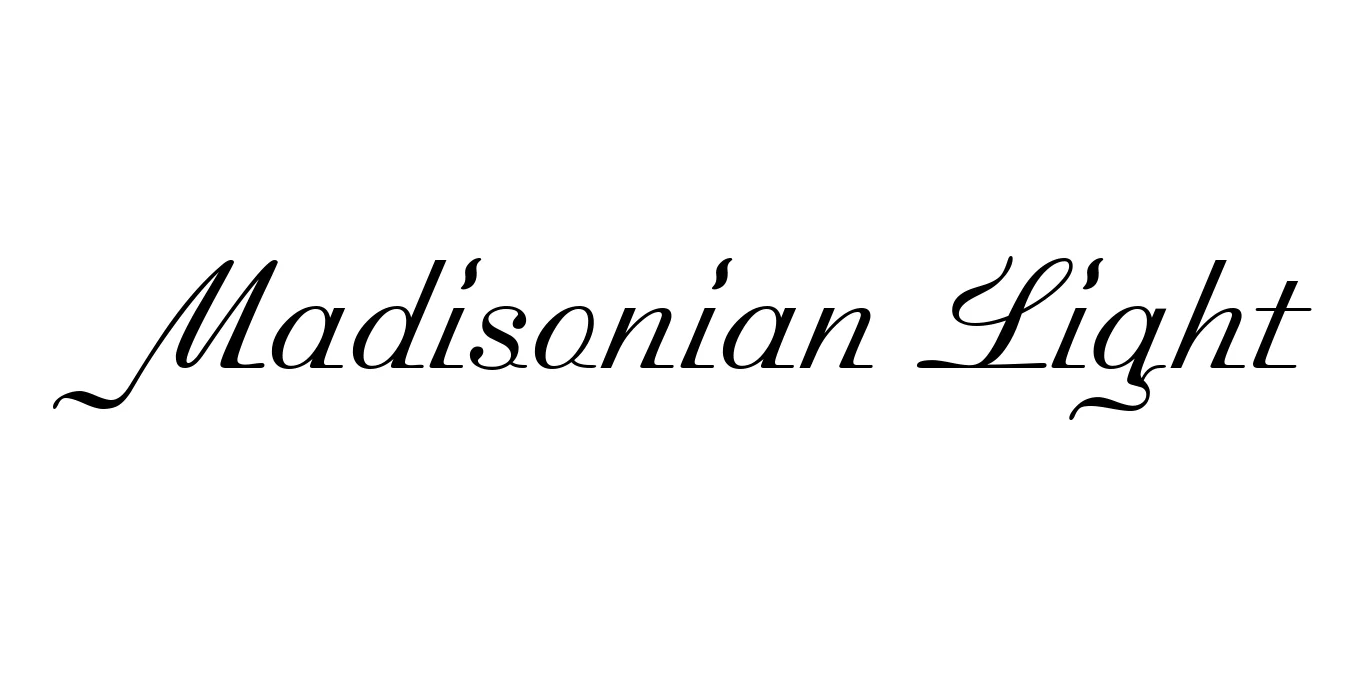
Madisonian Light
Designed by George Thomas
Madisonian Light is a refined script typeface that draws inspiration from the classic calligraphic styles of the early 20th century. It features elegant, flowing strokes and a high degree of contrast between thick and thin lines, embodying the sophistication of formal copperplate scripts. The Light weight offers a delicate, airy feel that is particularly effective for high-end branding, luxury packaging, and high-profile invitations.
Originally designed to mimic the fluid motion of a pointed pen, this typeface excels in contexts requiring a touch of vintage luxury and timeless grace. Madisonian Light is frequently utilized in wedding stationery, formal certificates, and editorial layouts where a sense of tradition is paramount. Its clean lines and professional finish ensure it remains a staple for designers looking to achieve a sophisticated, hand-written appearance without sacrificing legibility.
Madisonian Light Best Uses
Perfect for invitations and RSVP cards needing a romantic, formal touch.
Ideal for luxury logos and high-end fashion identity design.
Adds an air of authority and tradition to diplomas and awards.
Used for decorative pull quotes and sophisticated magazine headers.